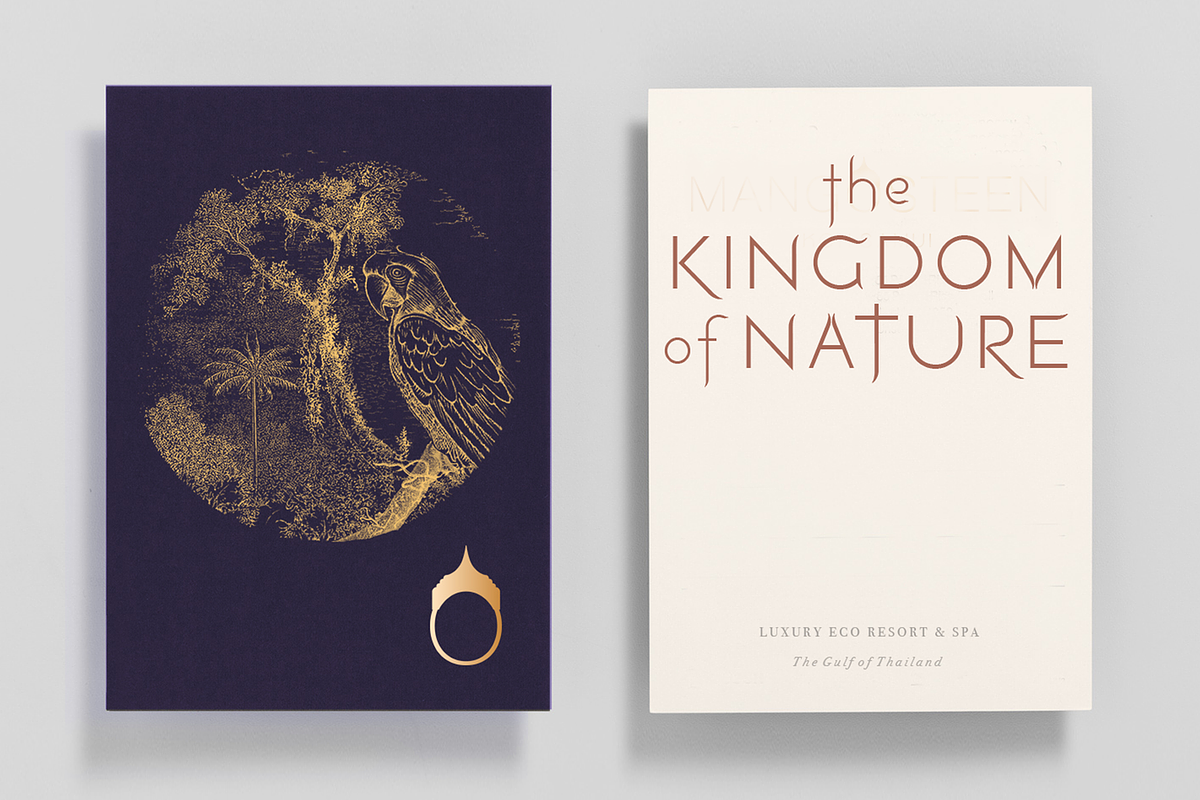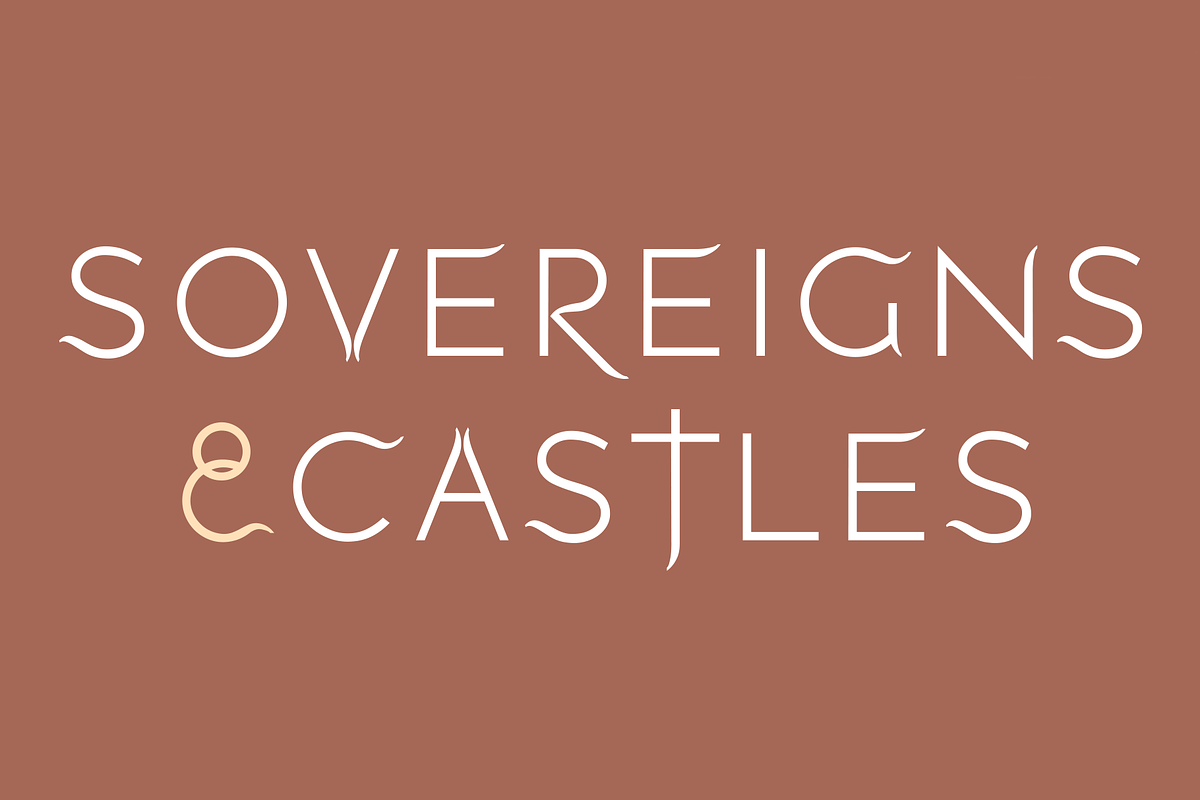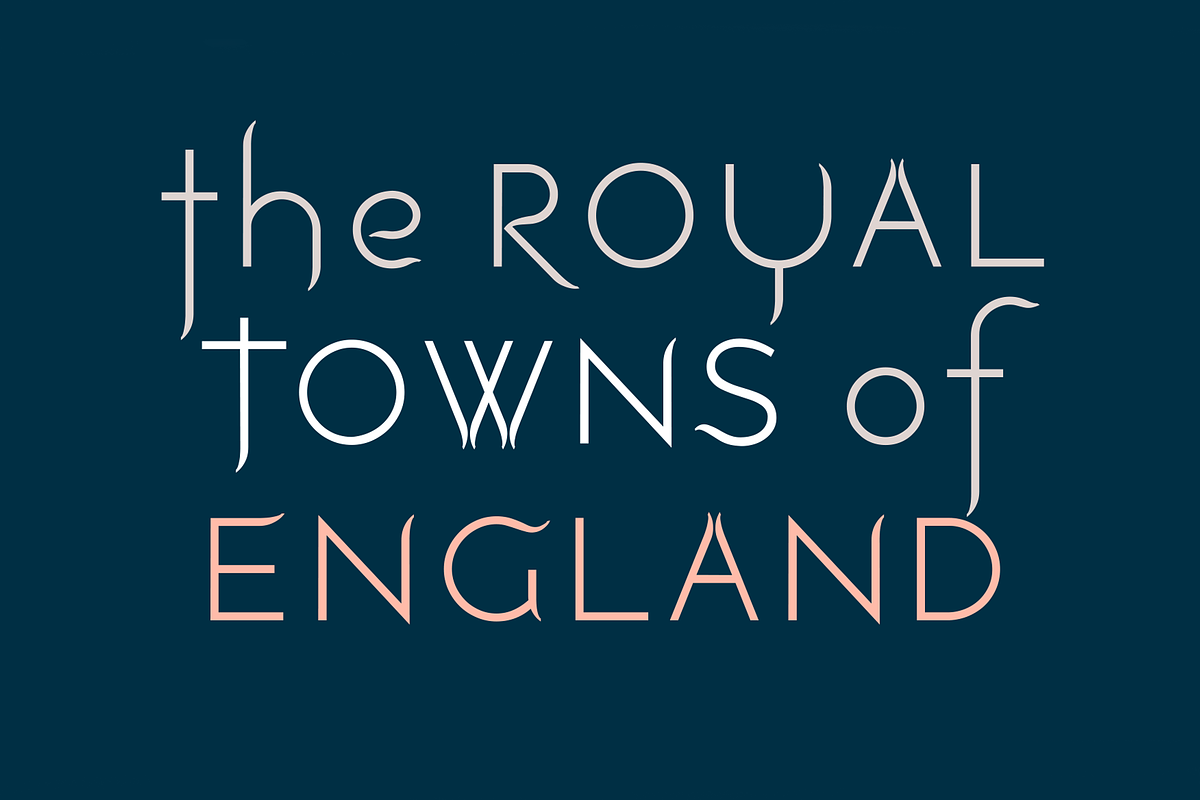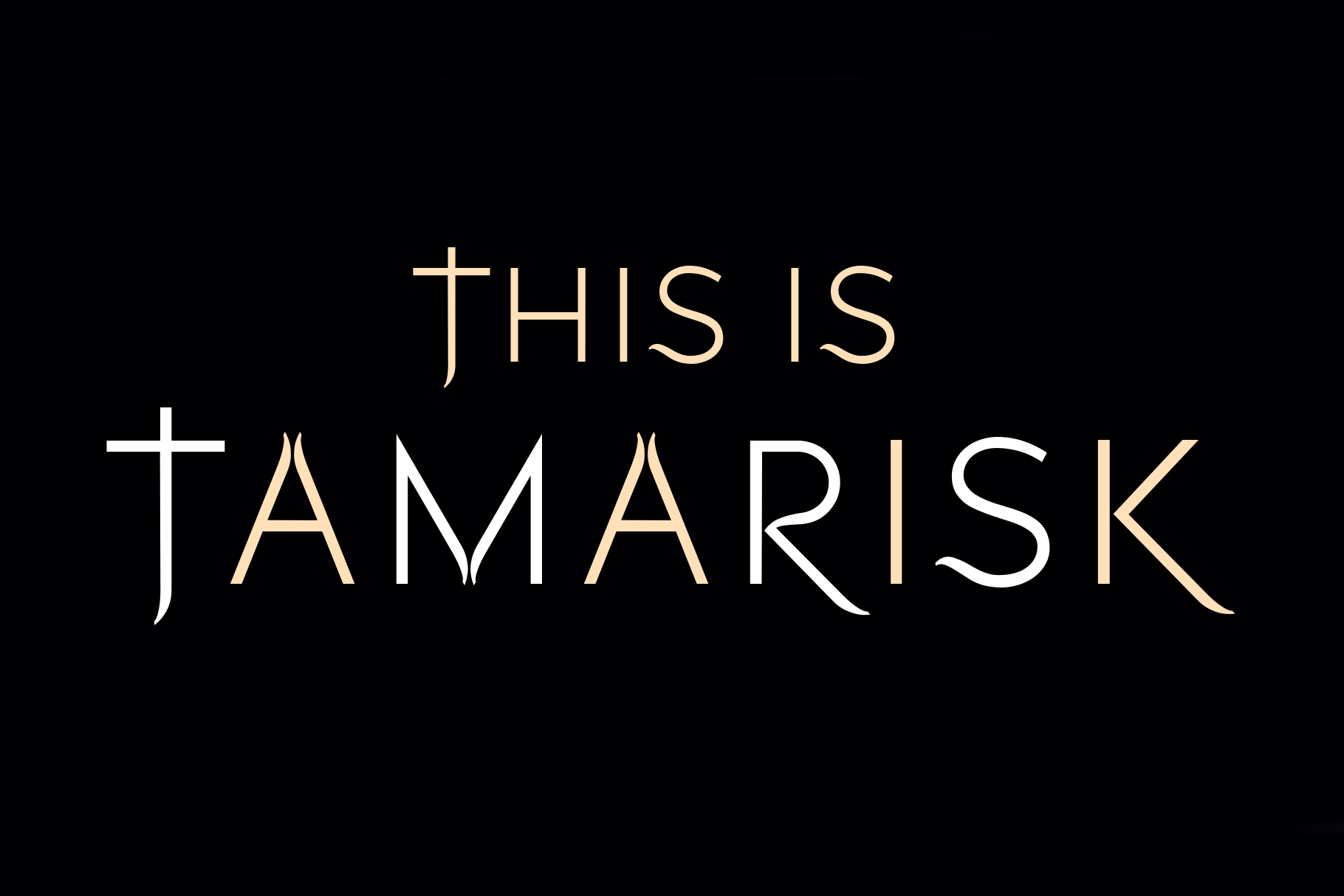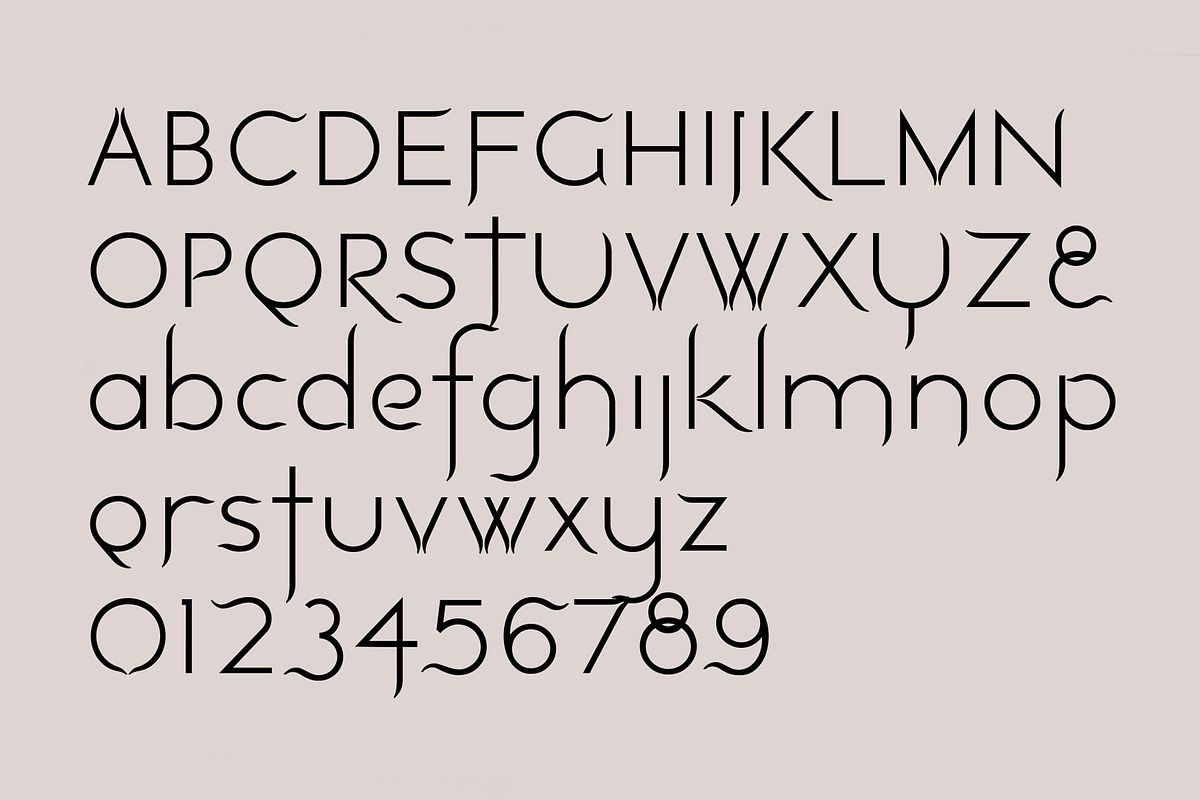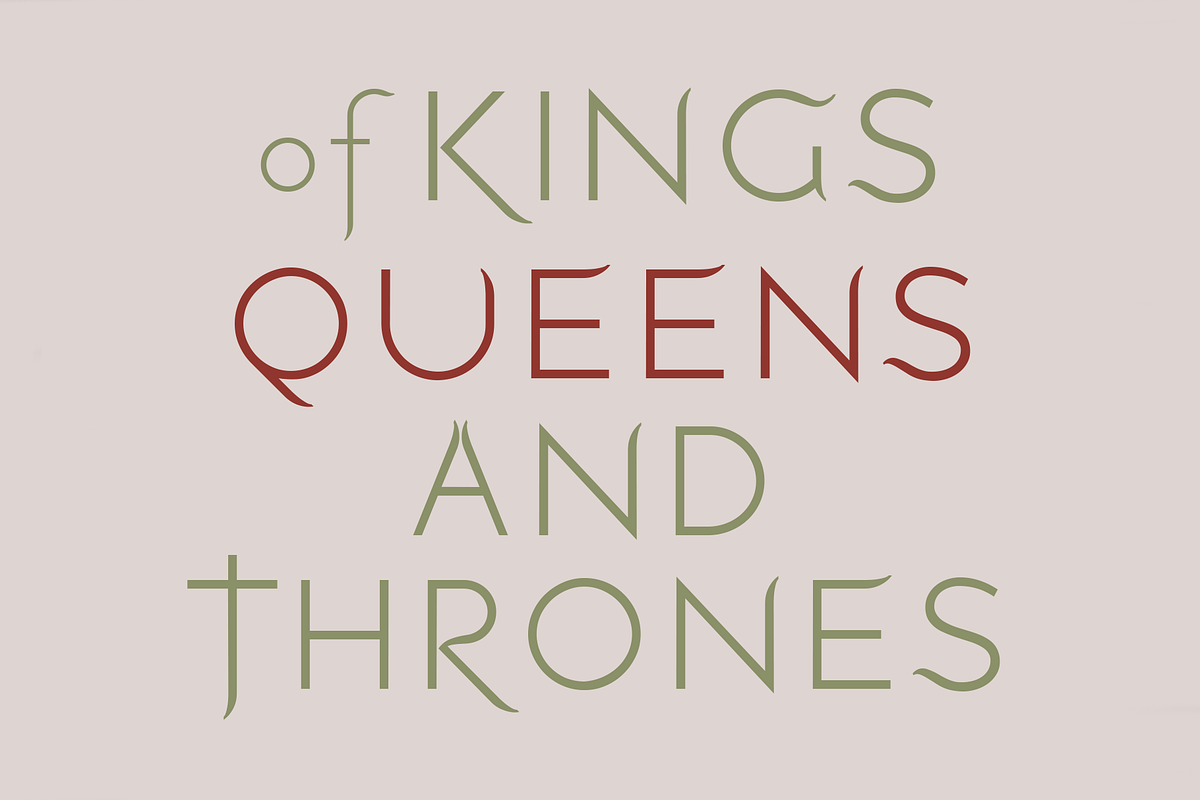
Tamarisk. Stunning serif/sans font
Tamarisk is another expressive new 'crossover' font for designers from LostandFoundry. This beautiful font has the look and feel of a modern sans-serif typeface, but with subtle 'serif-like' touches that give it a unique identity of classic, yet contemporary. Thus making it quite a rarity in the typographical world.
With its distinctive A, M, V & W, Tamarisk was inspired by a rainy weekend watching 'Crown' and wanting to design a font that captured that world, but bringing it into the 21st century.
Tamarisk, (named after a residence of the Royal family), is a must-have addition to any serious designer's font library. Tamarisk comes in 2 weights and supports French, German and other European Languages.